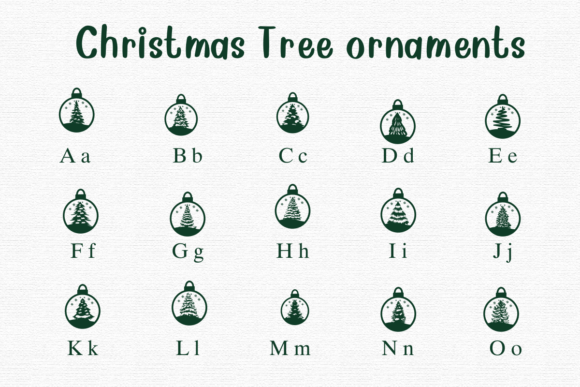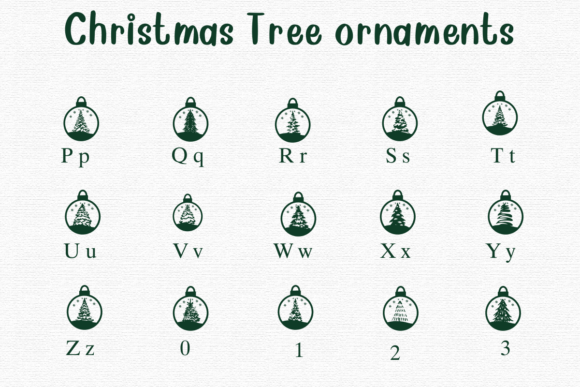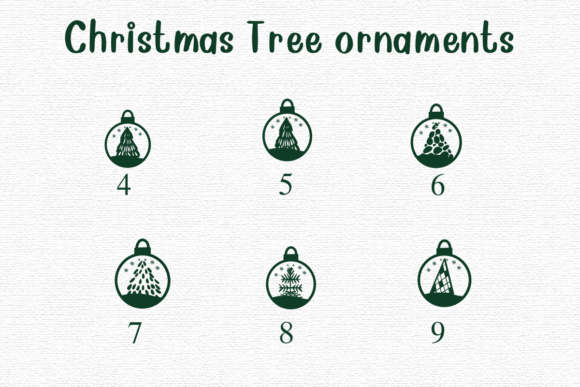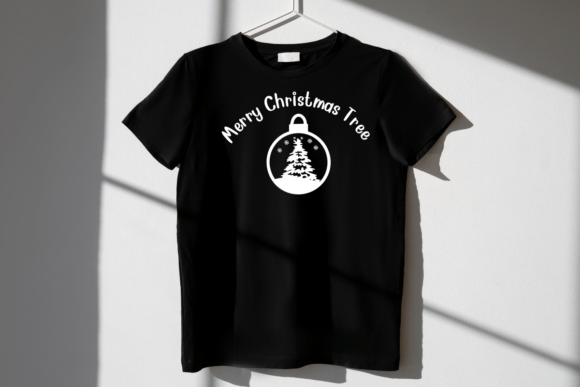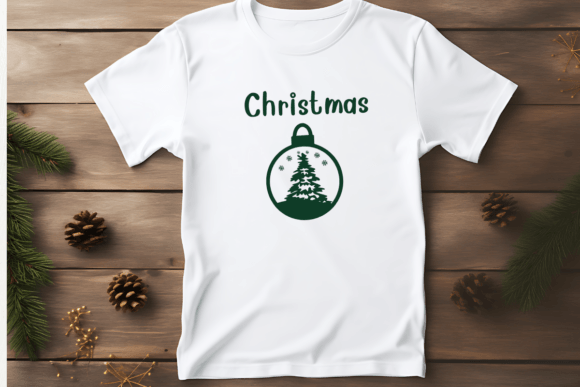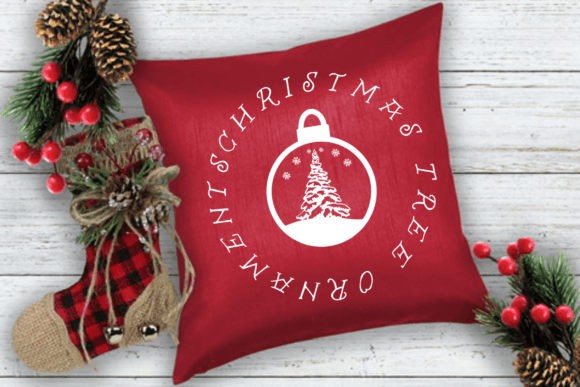
Introduction to Christmas Tree Ornaments Font
There’s something magical about unwrapping a package filled with colorful Christmas tree ornaments on a chilly winter evening. The sound of laughter, the sparkle of twinkling lights, and the joy of decorating the tree with loved ones create memories that last a lifetime. But what if you could capture that festive spirit in your creative projects, too? Enter the Christmas Tree Ornaments Font, a delightful dingbats font that adds a touch of holiday cheer to your designs.
As a designer, you’re always on the lookout for high-quality design resources that can elevate your creative projects. The Christmas Tree Ornaments Font is a valuable addition to your toolkit, offering a transparent background and a wide range of ornaments to choose from. With this font, you can create stunning designs for wedding invitations, DIY crafts, decorations, logos, and more – all with a festive twist that’s sure to delight.
Key Features of Christmas Tree Ornaments Font
- High-quality design for a creative project, perfect for decorating digital Christmas cards, social media posts, and websites.
- Features a transparent background, allowing for seamless integration with any design or image.
- Includes a range of Christmas tree ornaments in various shapes, sizes, and colors, providing endless design possibilities.
- Perfect for designers, crafters, and anyone looking for a unique and festive design element to enhance their creative project.
Honest Review: Christmas Tree Ornaments Font
I recently stumbled upon the Christmas Tree Ornaments Font, and I must say, it’s a delightful addition to any creative project. The font is designed specifically for creating Christmas-themed designs, and it’s perfect for those looking to add a touch of festive cheer to their work.
- ✨ High-quality design: The font is crisp and clear, making it perfect for printing or digital use.
- ✨ Transparent background: This allows designers to easily integrate the font with other design elements, creating a seamless look.
- ⚠️ Limited character set: The font only includes a limited set of characters, which may not be suitable for more complex designs.
- ⚠️ Not ideal for body text: The font is best suited for titles and headings, as the characters may not be legible when used for body text.
Overall, I’m impressed with the Christmas Tree Ornaments Font. It’s a great design resource for anyone looking to add a festive touch to their work. While it has some limitations, it’s a high-quality font that’s perfect for creative projects.
Use the Christmas Tree Ornaments Font to create a high-quality design for your holiday cards or gift tags. You can also use it to create a unique and creative project, such as a custom ornament or a holiday-themed poster.
The Christmas Tree Ornaments Font is perfect for designers and crafters who want to add a festive touch to their projects. It’s ideal for creating holiday-themed designs, such as Christmas cards, gift tags, and ornaments, as well as for adding a decorative element to websites, social media posts, and other digital content.